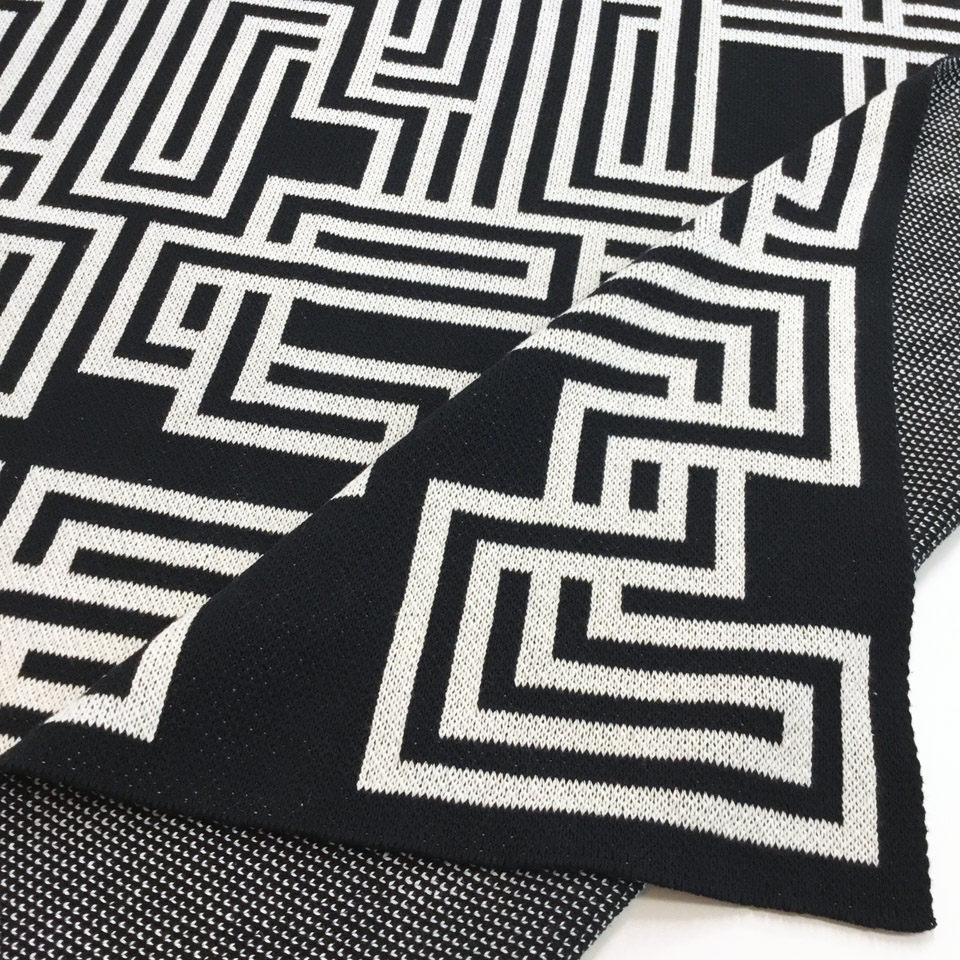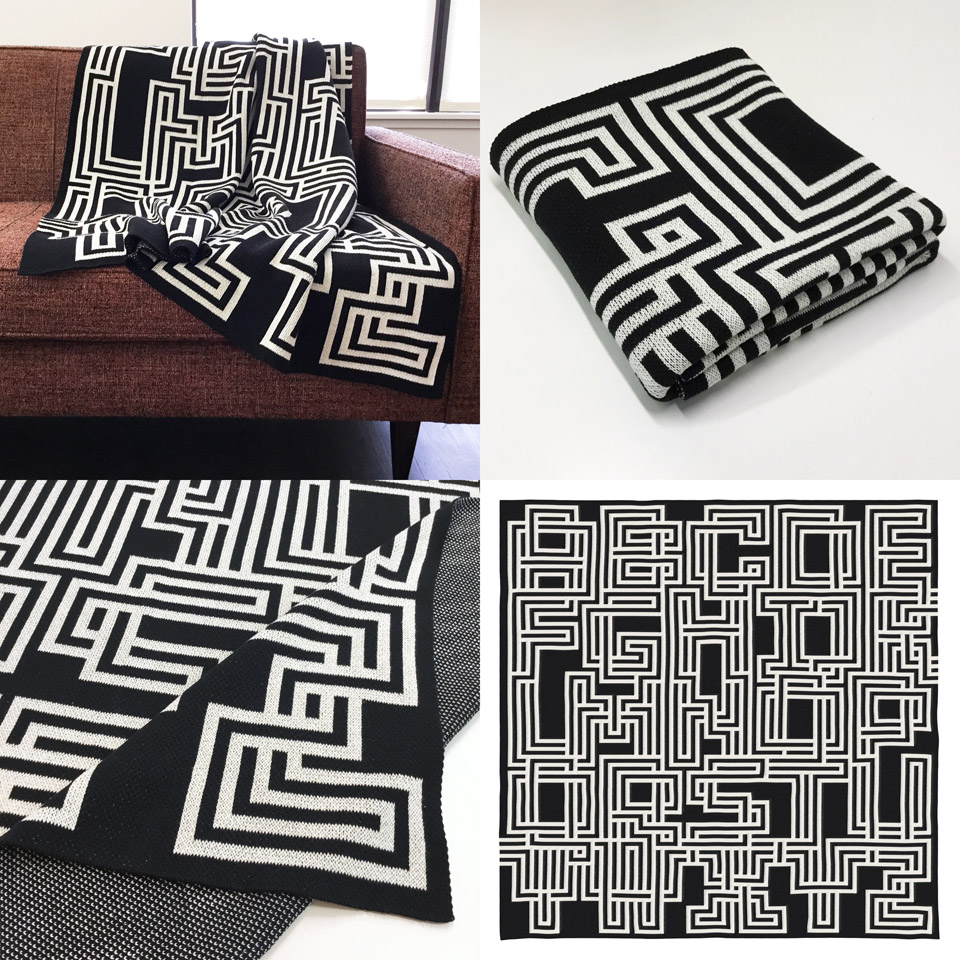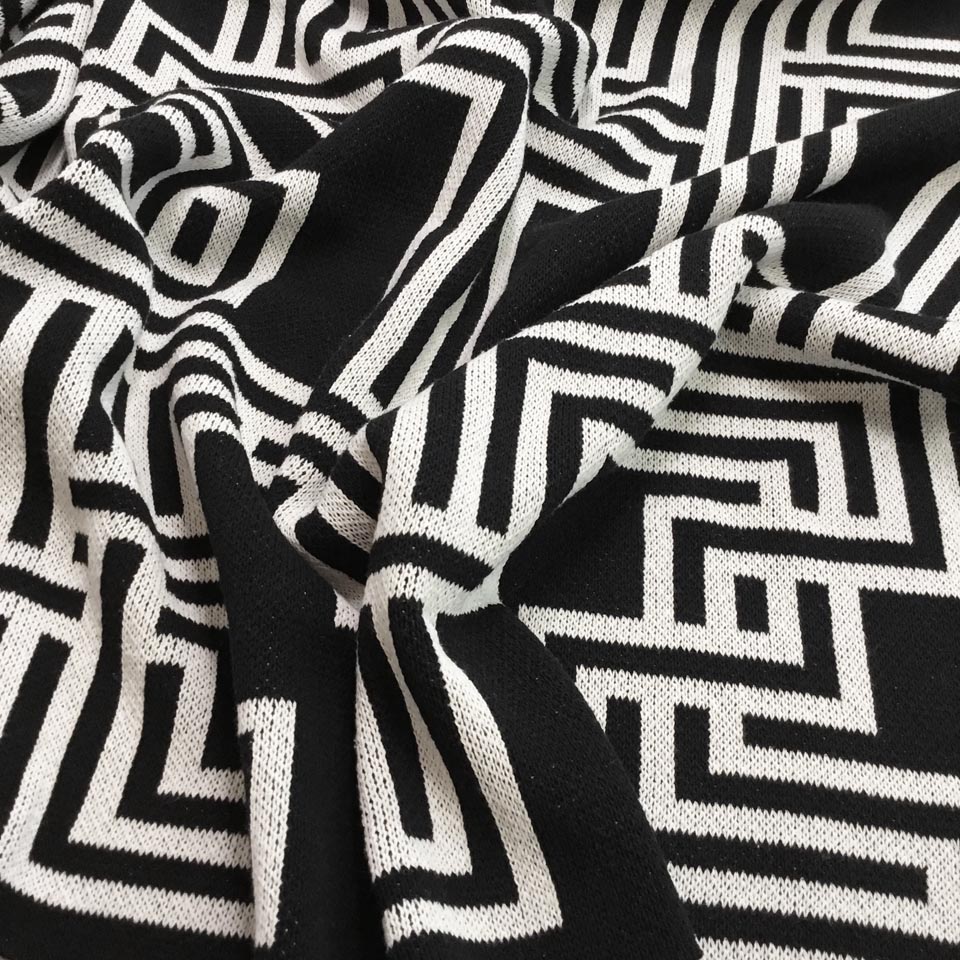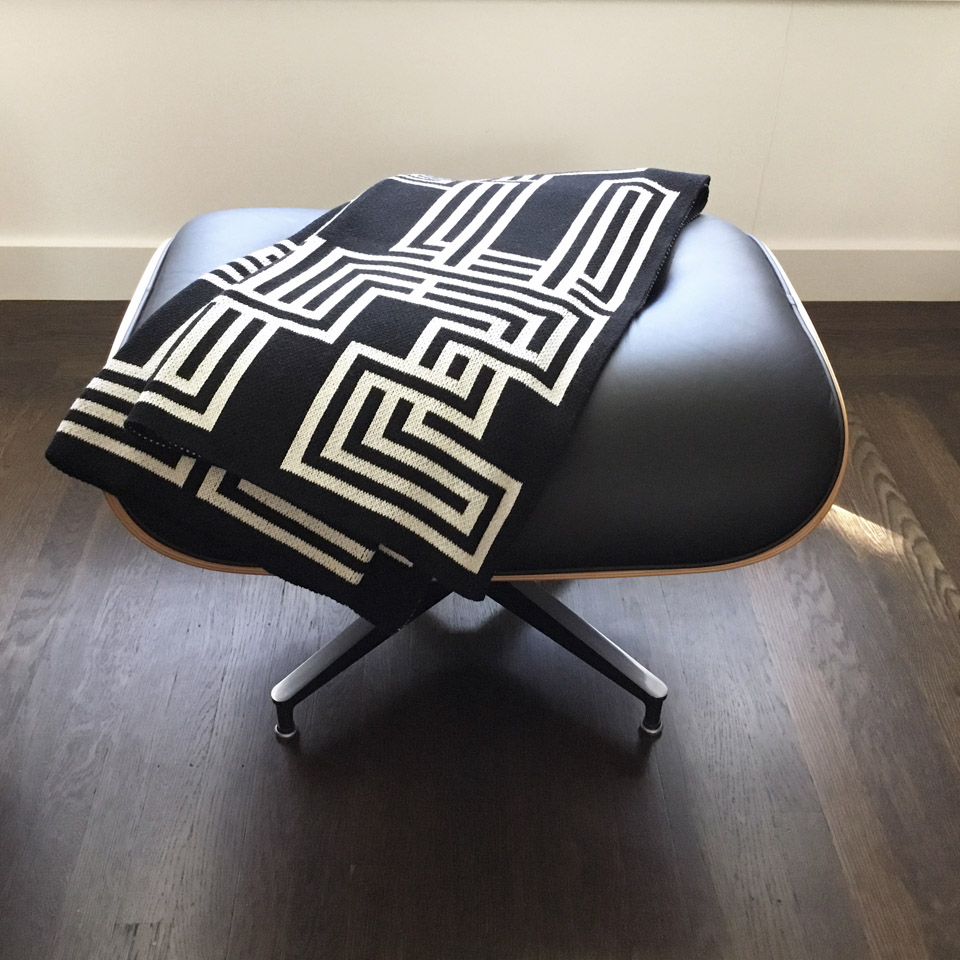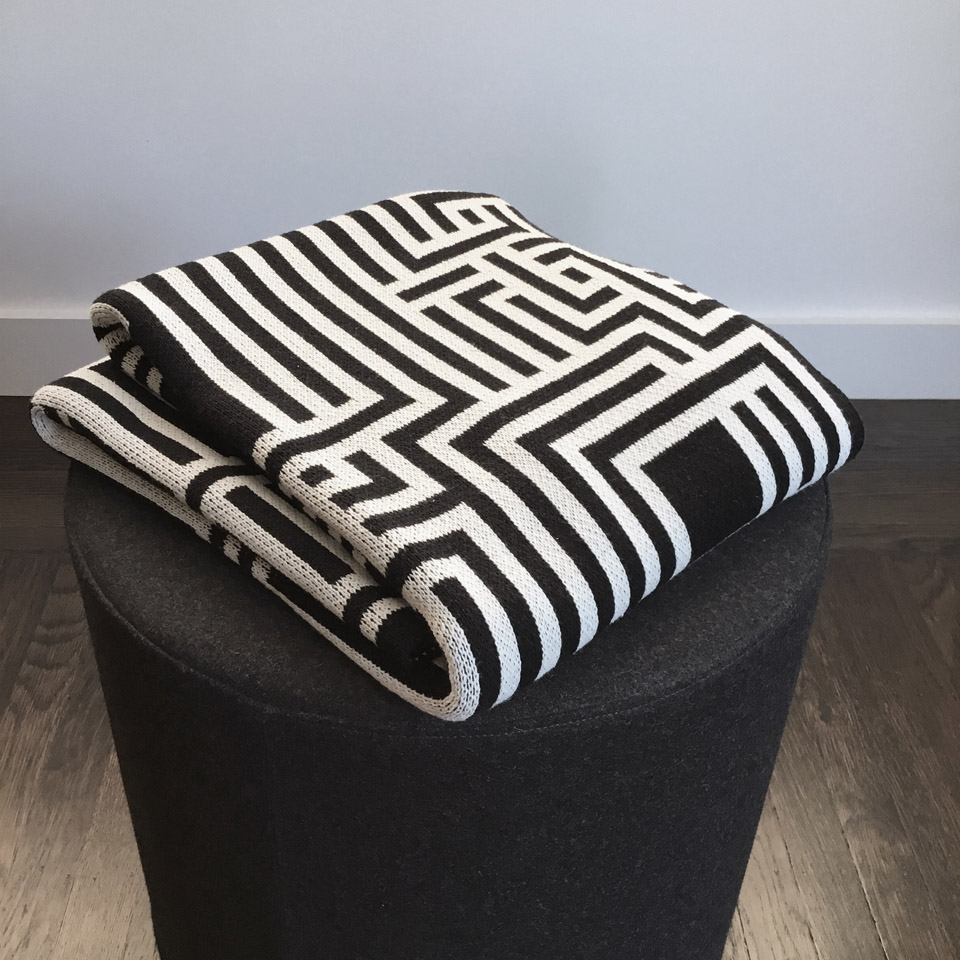
50" x 50" Black + White Alphabet Throw Blanket
This comfy throw blanket features an alphabet design, with the letters A to Z, composed from lines and outlines that intertwine.
Black and white linear design on front, stippled herringbone pattern on back.